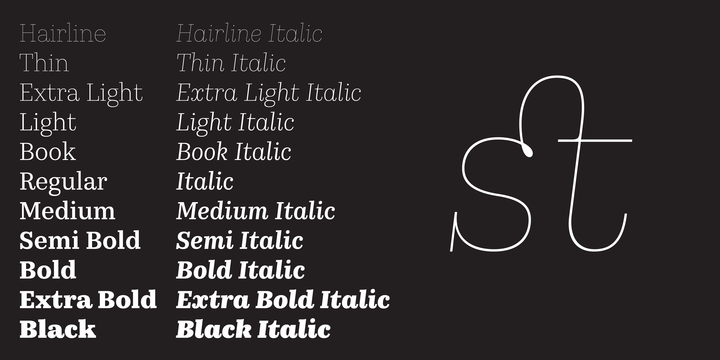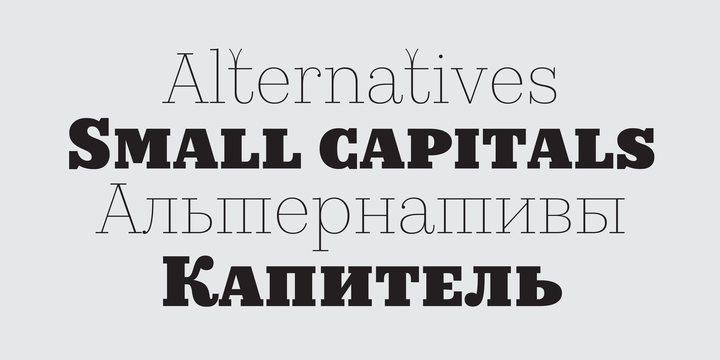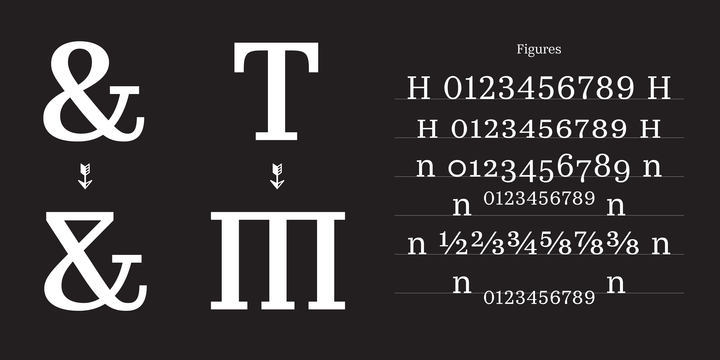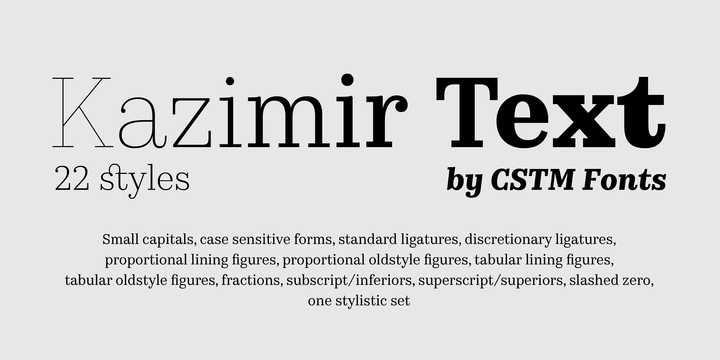
Kazimir Text
Kazimir Text Font
Kazimir Text Font Family
Kazimir Text is a Modern serif typeface with a quite simple graphic idea. It is a Text version of display Kazimir typeface. Kazimir Text has a bit wider proportions, a bit lower contrast and much wider codepage with extended language support compare to Kazimir. A set of stylistic alternatives called Irregular was also reconsidered — they became also more suitable for text usage. The amount of styles also became much wider: 11 romans and 11 italics.